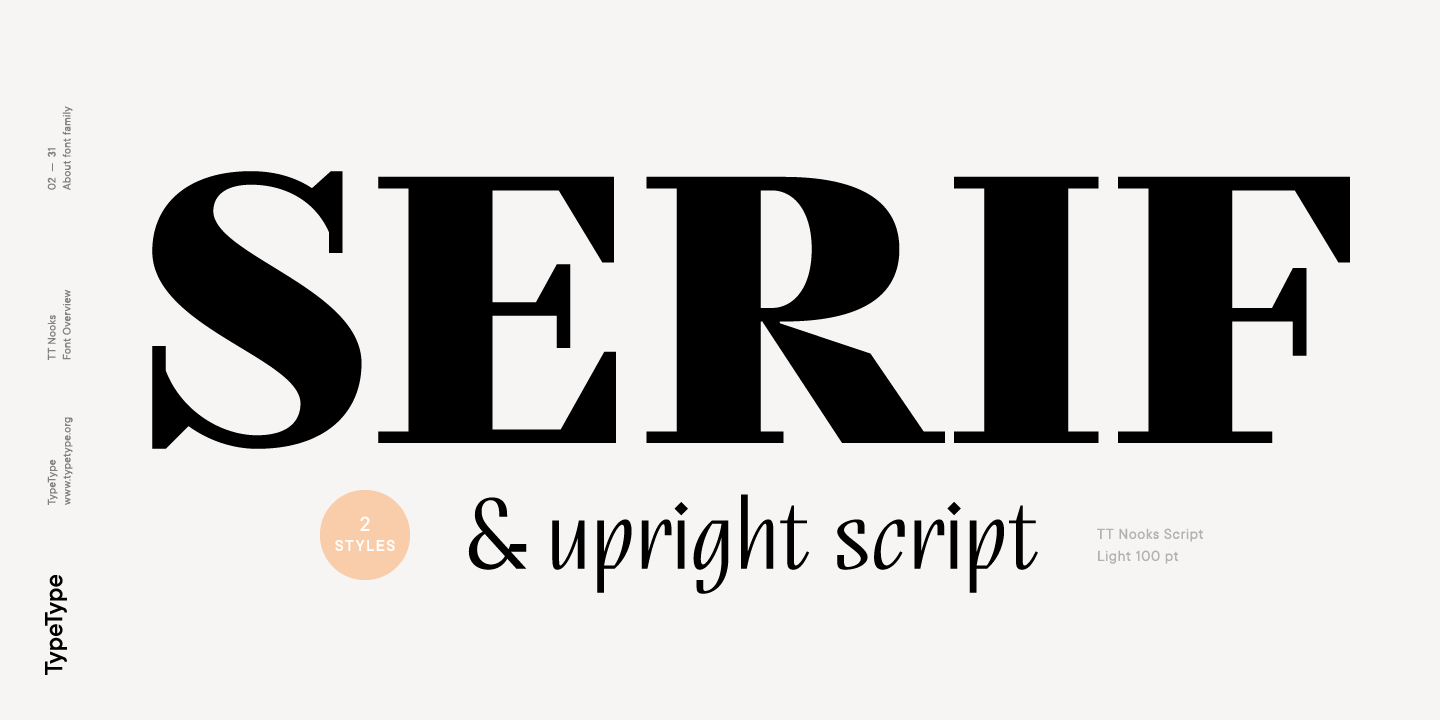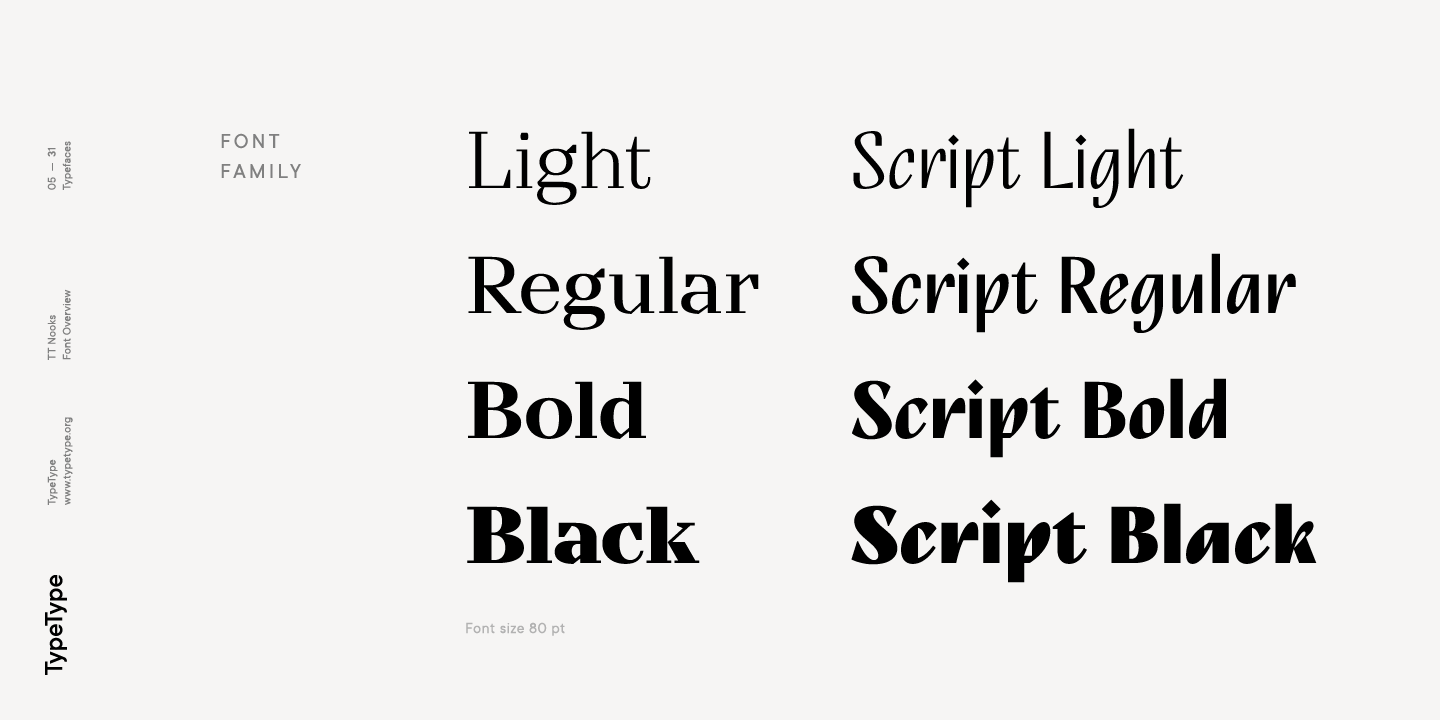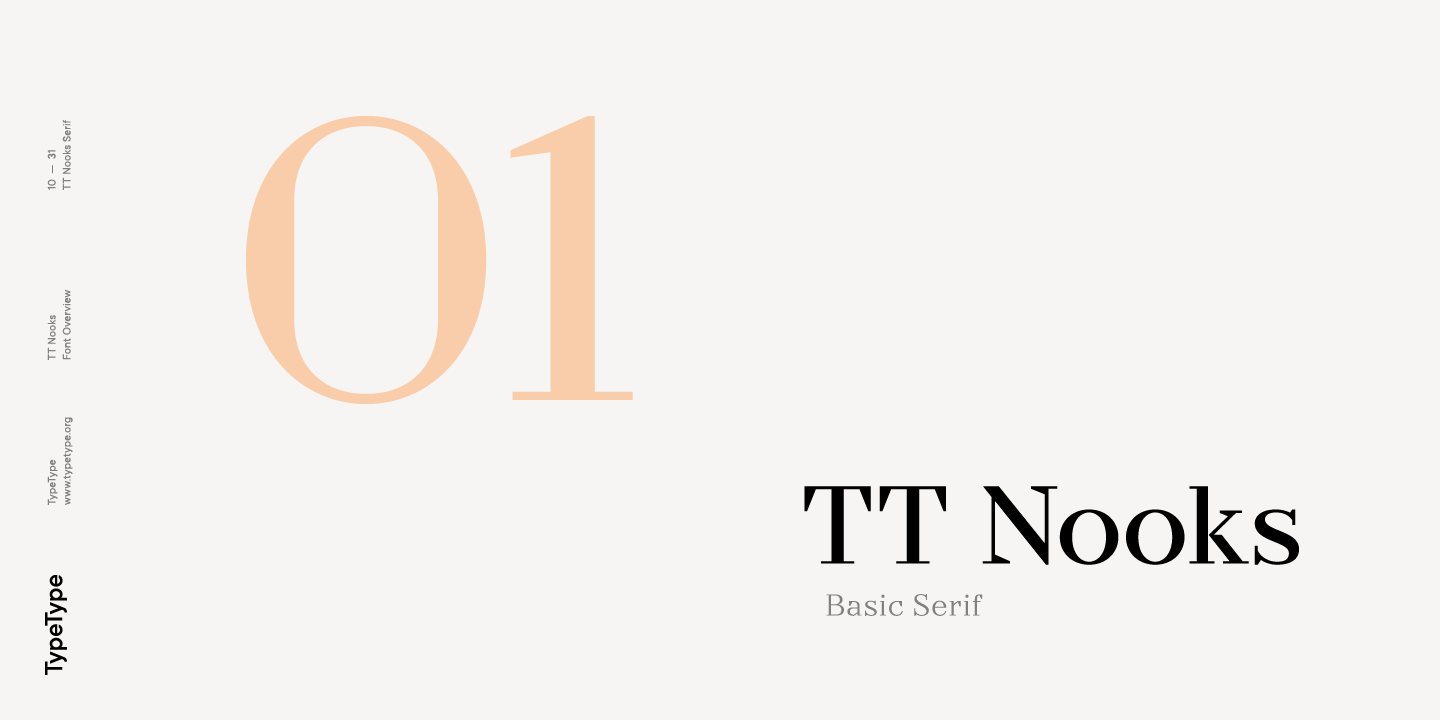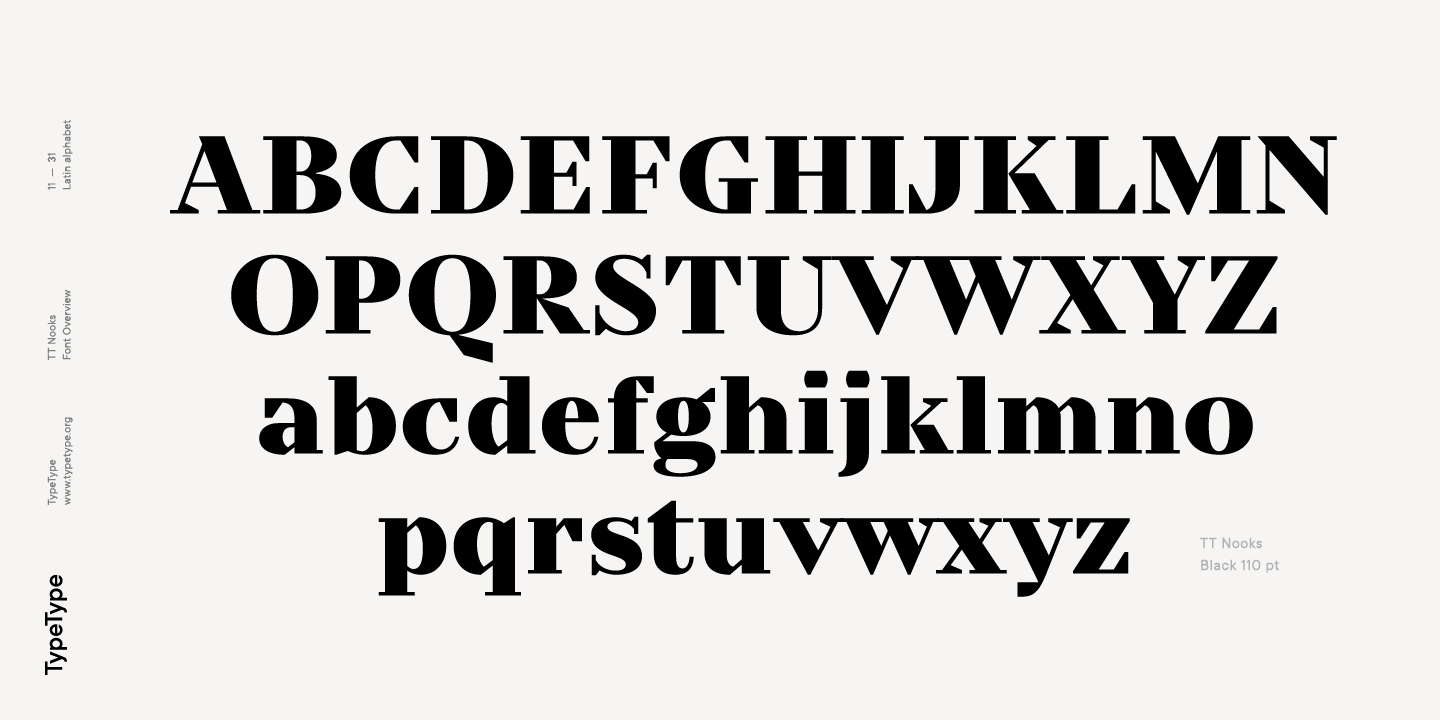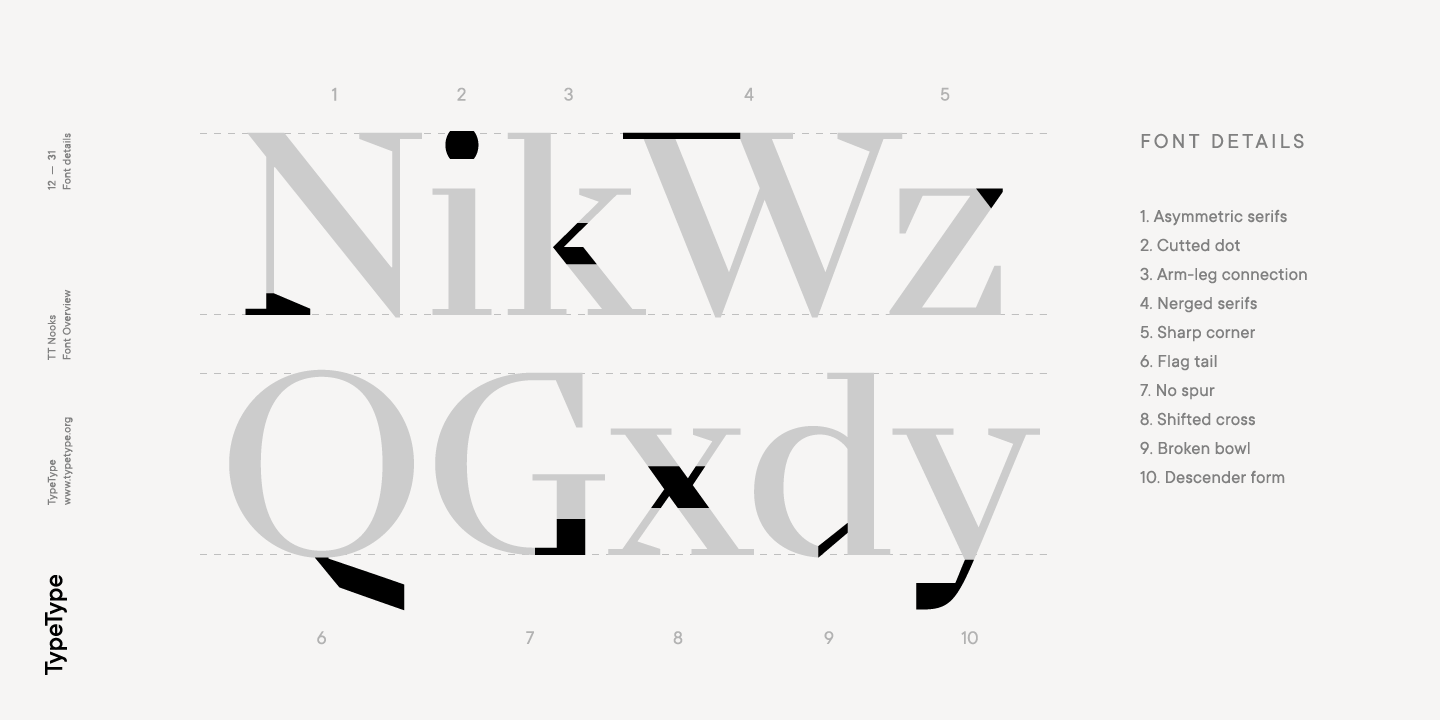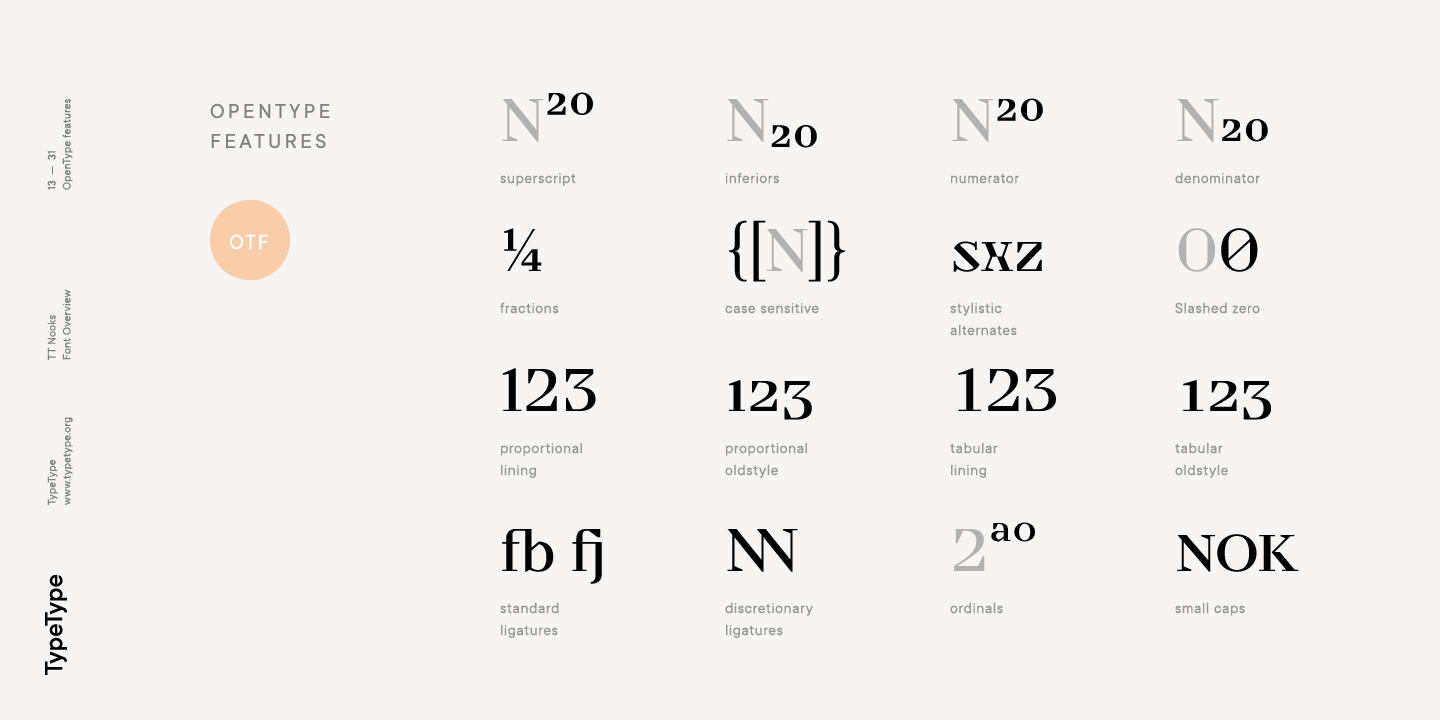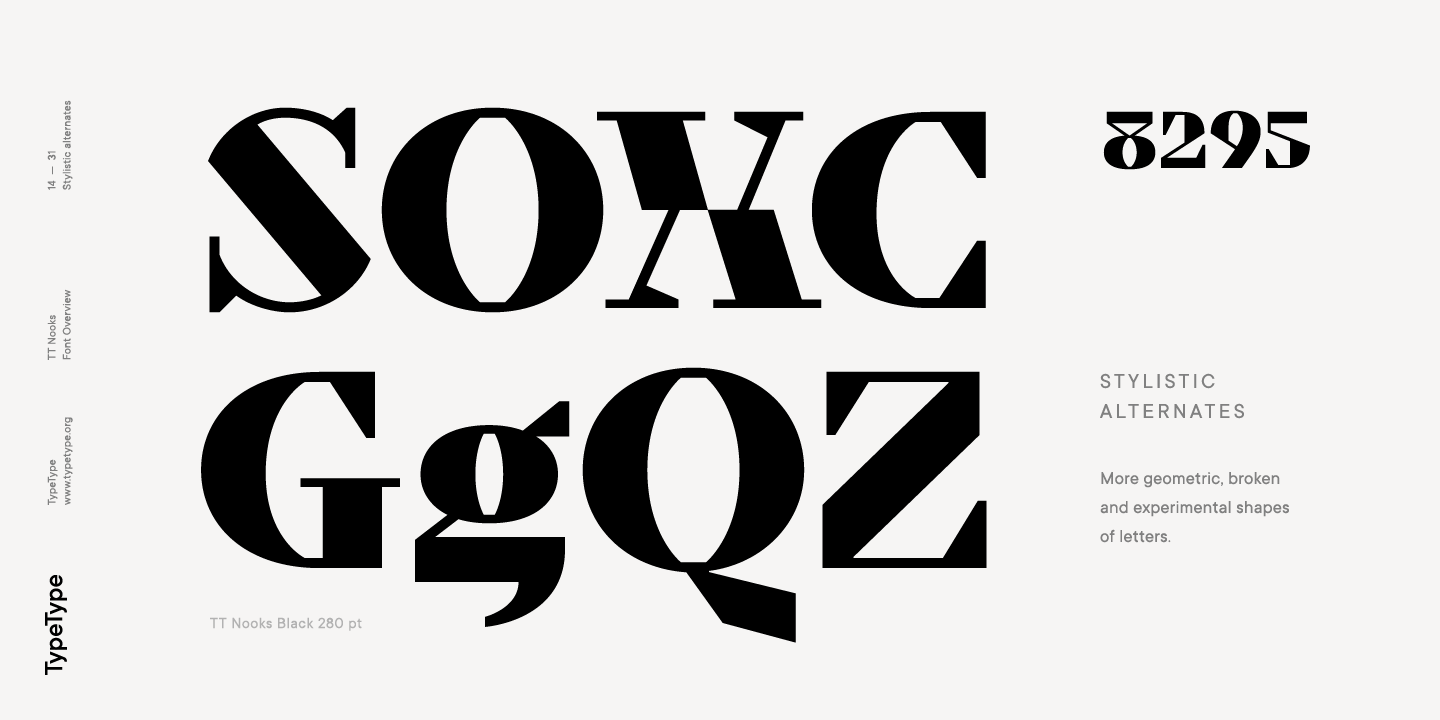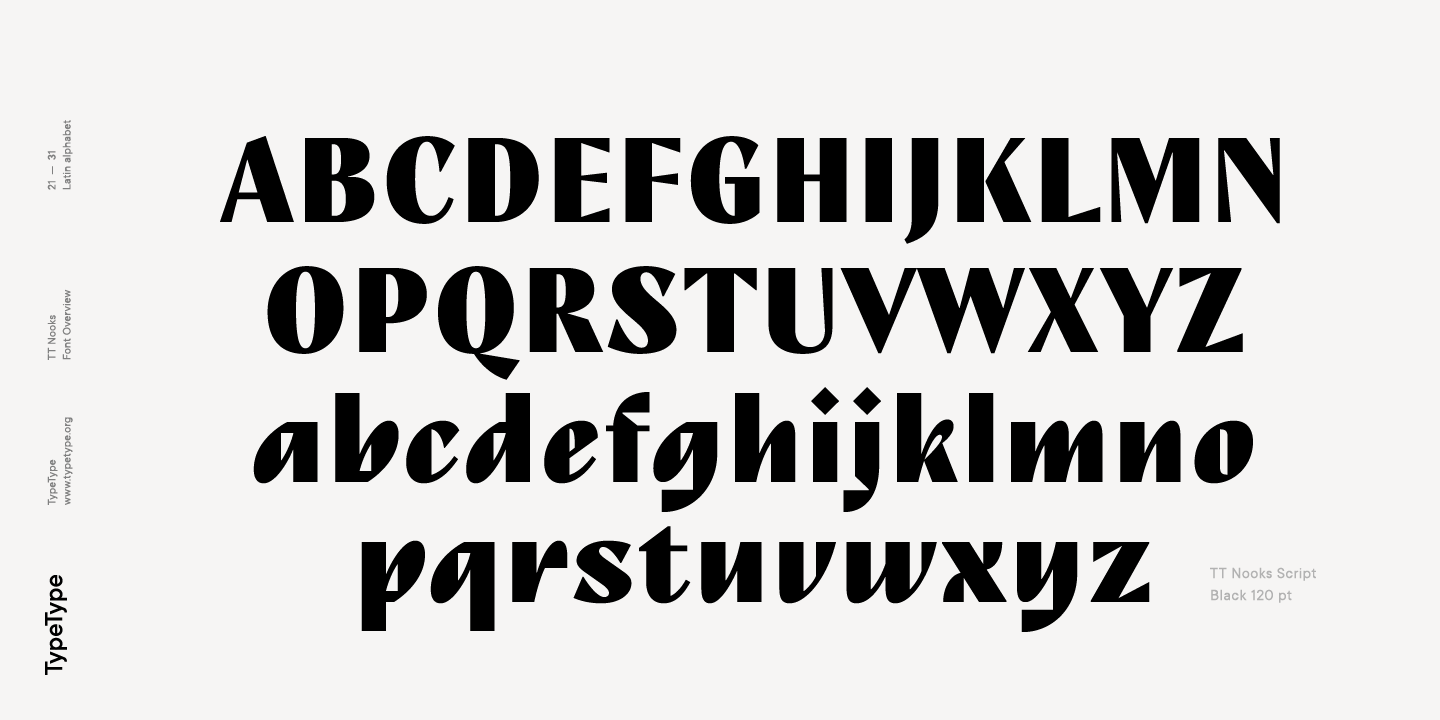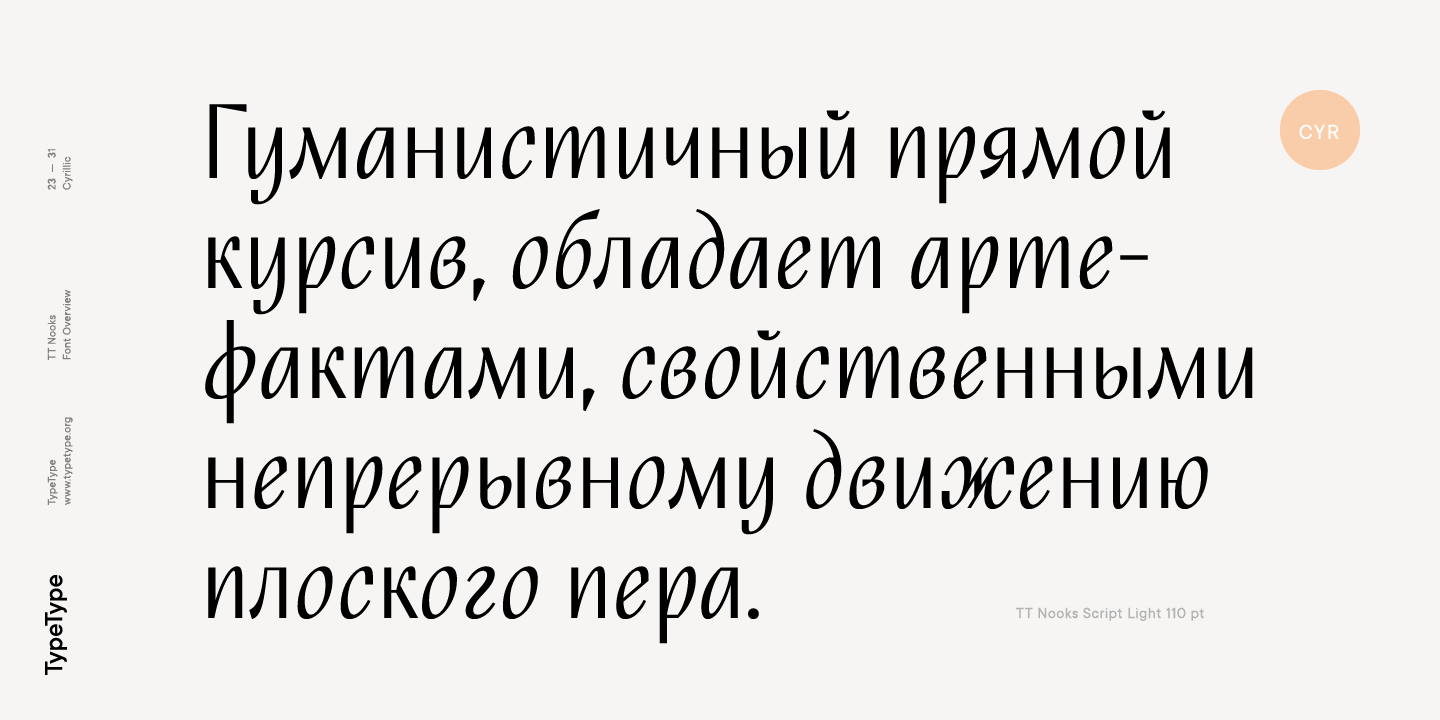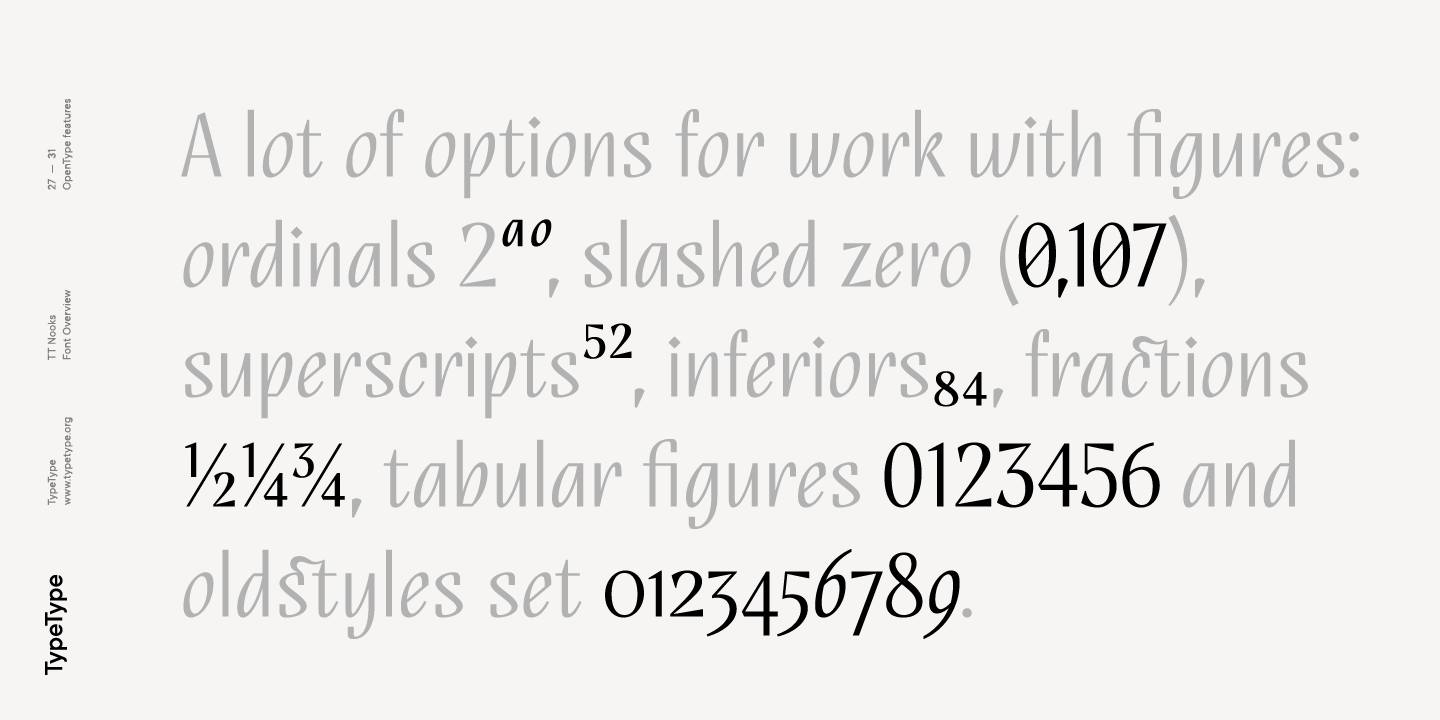
The main subfamily is TT Nooks—a stylish high-contrast serif with a light touch of self-centeredness. If TT Nooks were a person, it would be an elegant lady with an independent and firm personality. In the original sketches of TT Nooks there were traces of a broad pen, but in the course of further evolution the typeface moved away from this style, retaining only the high contrast of strokes. In addition, in the process of design searches TT Nooks has obtained a touch of geometricity.
The serifs in TT Nooks stand out especially visibly thanks to their geometric shape that resembles slippers. In addition to their peculiarity, such serifs add stability to the font and allow better compensation of the black and white ratio within the letters. TT Nooks has small capitals for Latin and Cyrillic alphabets, as well as a set of stylistic alternates (including some figures) that makes the typeface a bit more geometric. In addition, we have drawn more than 25 ligatures, including ligatures for capital letters, slashed zero and many other useful OpenType features.
TT Nooks Script is a complementary family designed to harmoniously extend the main family and expand its scope. The forms of the characters in bold and light fonts of TT Nooks Script are quite different. For example, Black & Bold have high contrast strokes and an open aperture, and in Regular & Light the aperture of the characters is closed. TT Nooks also has small capitals for Latin and Cyrillic alphabets, ligatures, oldstyle figures and other OpenType features.
In light faces, TT Nooks Script is more humanist and has artifacts inherent to the continuous movement of a flat pen. In bold faces, TT Nooks Script has a very dense and dynamic typing rhythm, and the shape of the letters begins to geometrize. We had had the difficult task of preserving the continuity of forms between bold and light faces, and we have managed to solve it thanks to the found rhythm, which united different fonts, and proximate stylistic solutions.